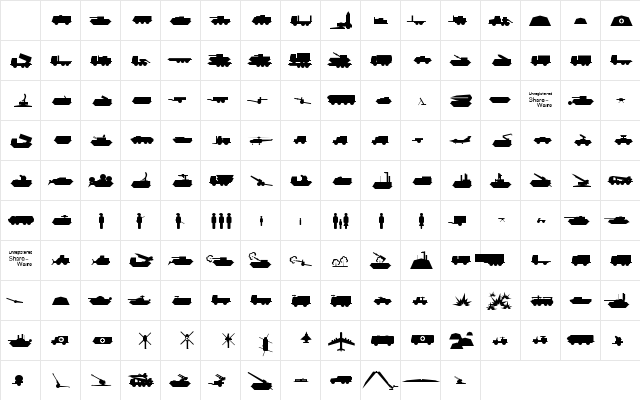
Milpics Generic Free Font
Milpics Generic
Style: Generic
Design Context for Milpics
Milpics is a composed and adaptable typeface that performs quietly and consistently across a wide range of design contexts.